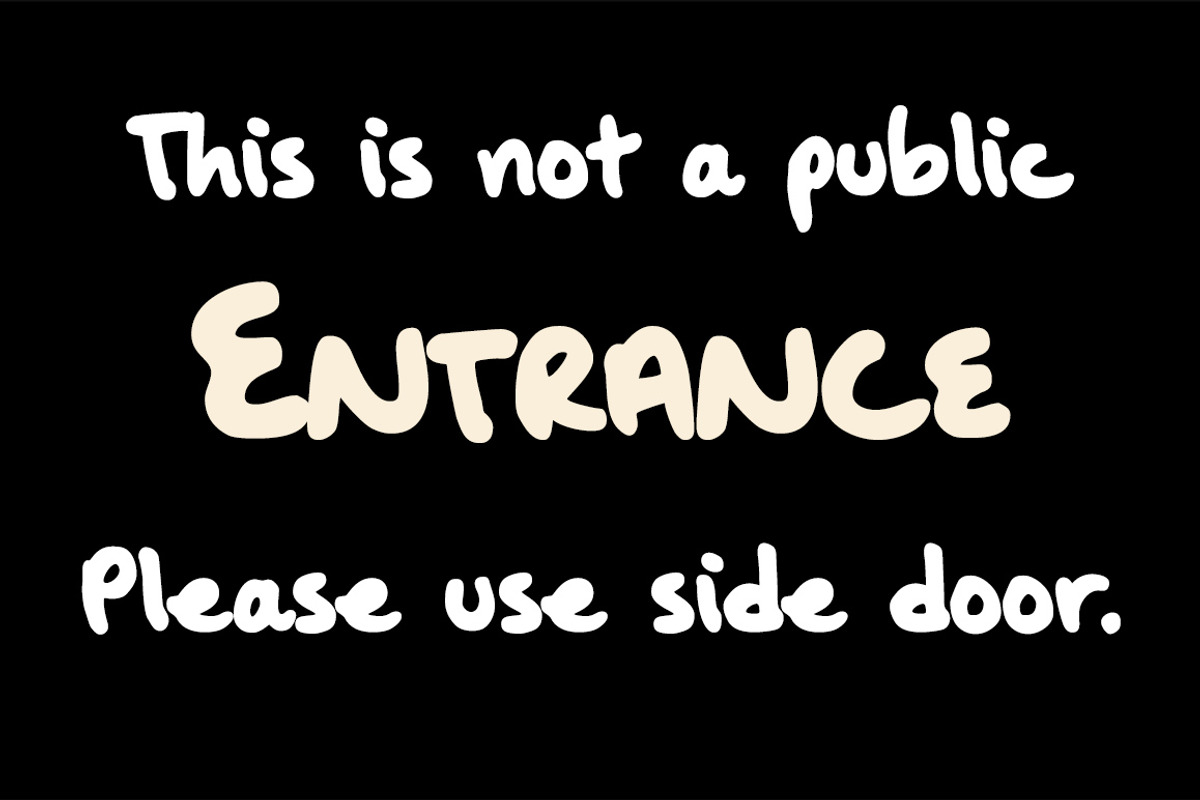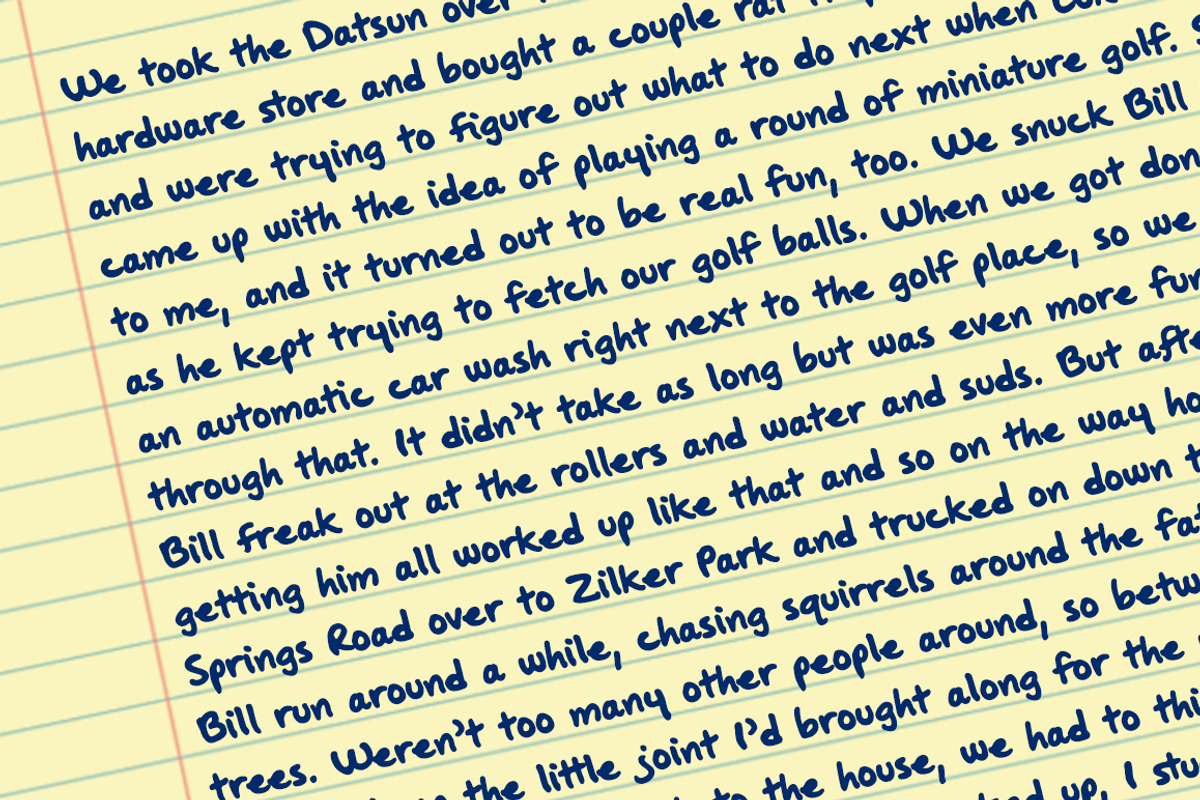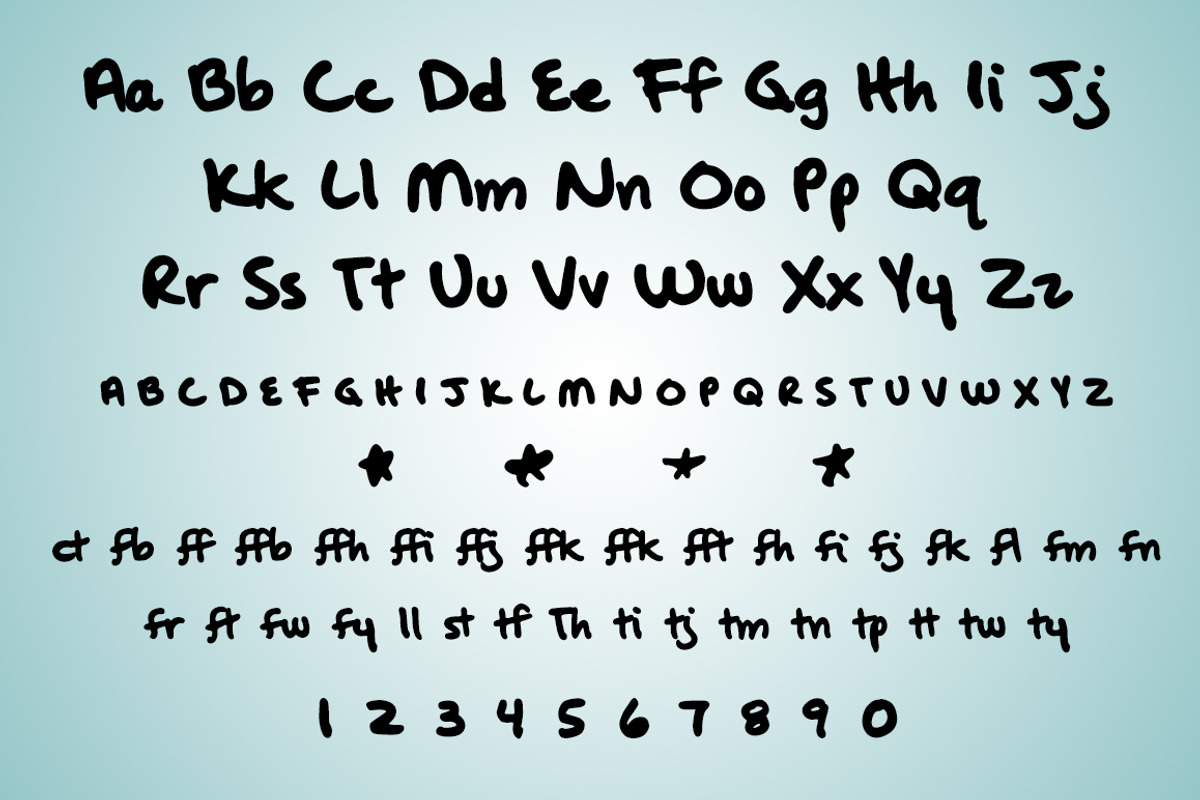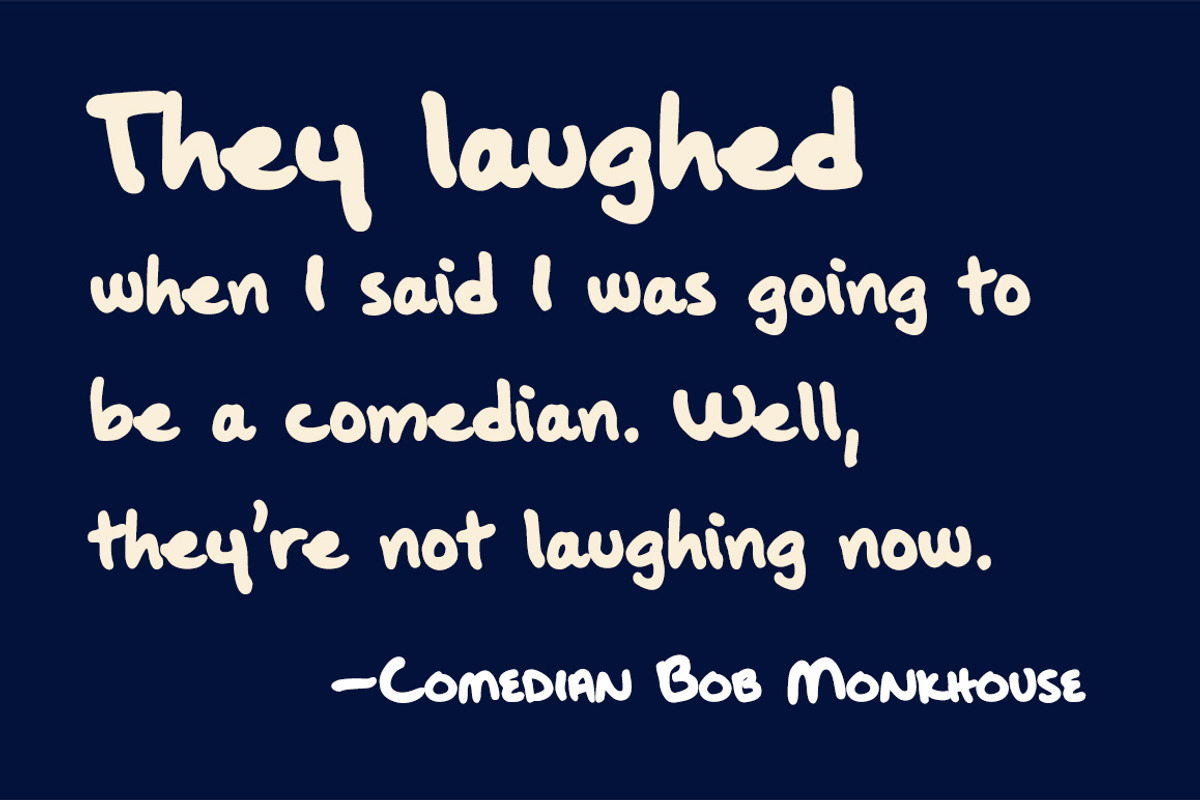
Oak Street, a heavy handwritten font
Oak Street, a heavy handwritten font by Three Islands Press is a font selected for branding, posters, packaging, typography.
- It's a heavyweight font with a slight left-leaning slant and a chockablock character set, including true small caps, numerous ligatures, and
Why Oak Street, a heavy handwritten font is worth a look
Oak Street, a heavy handwritten font by Three Islands Press fits naturally into Branding, posters, packaging, typography.